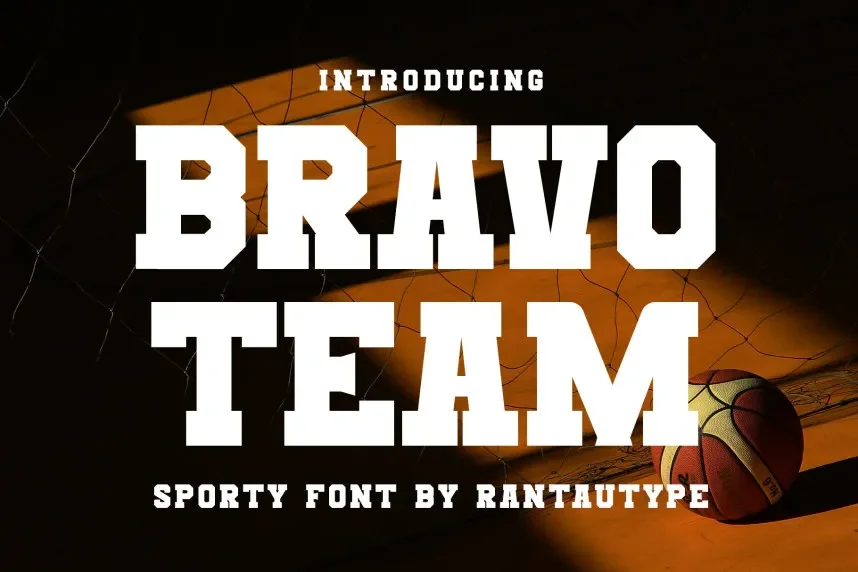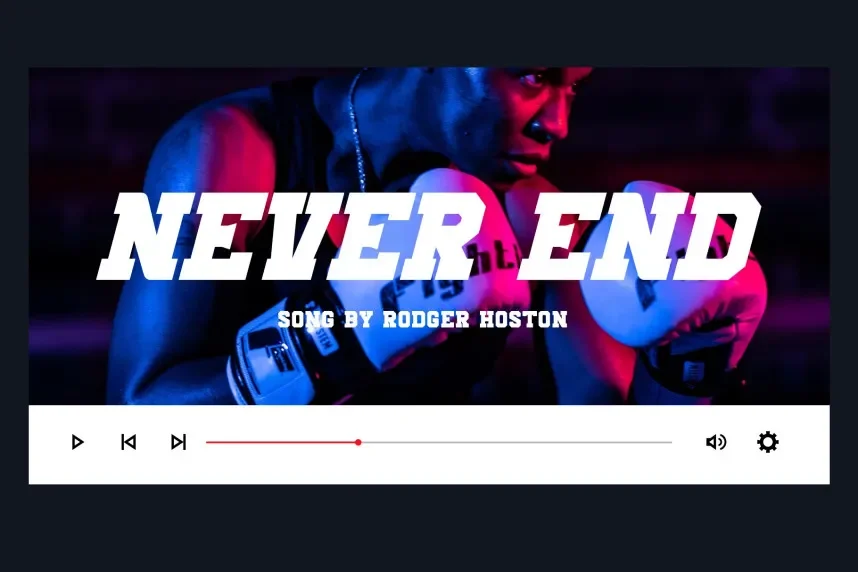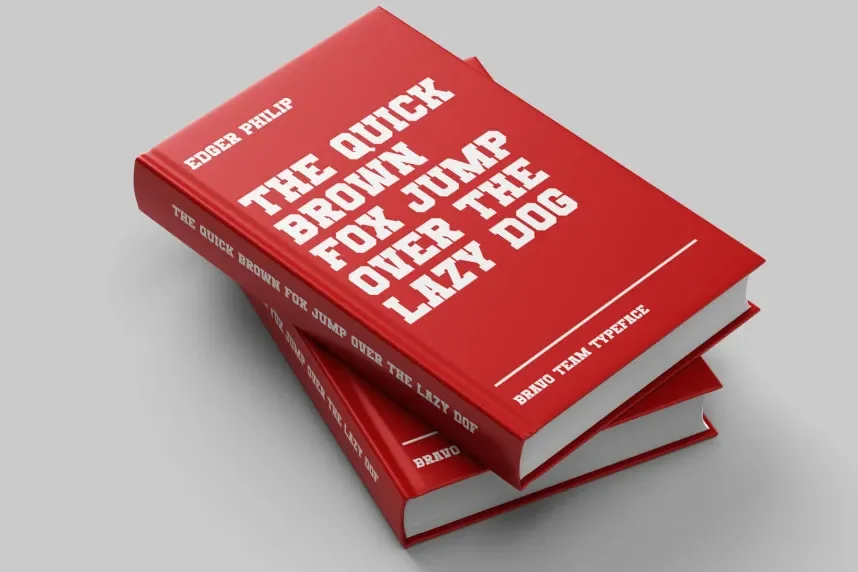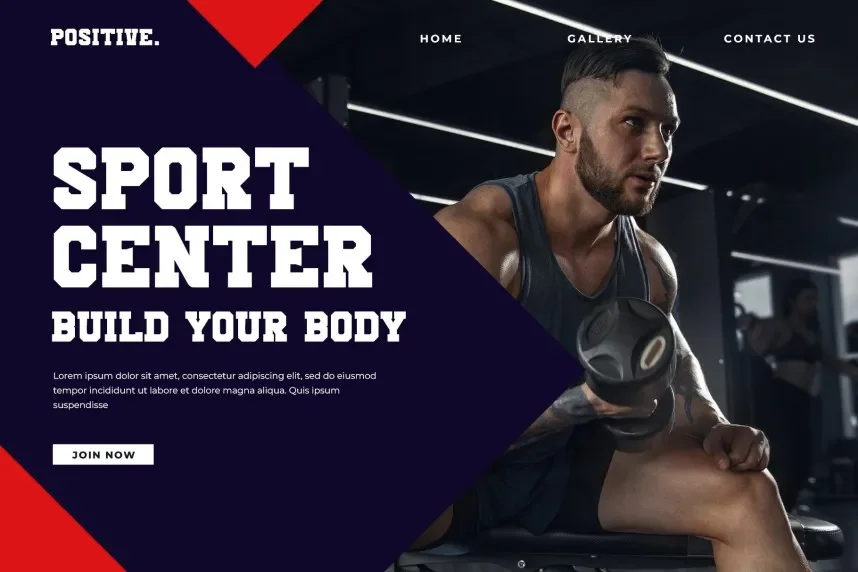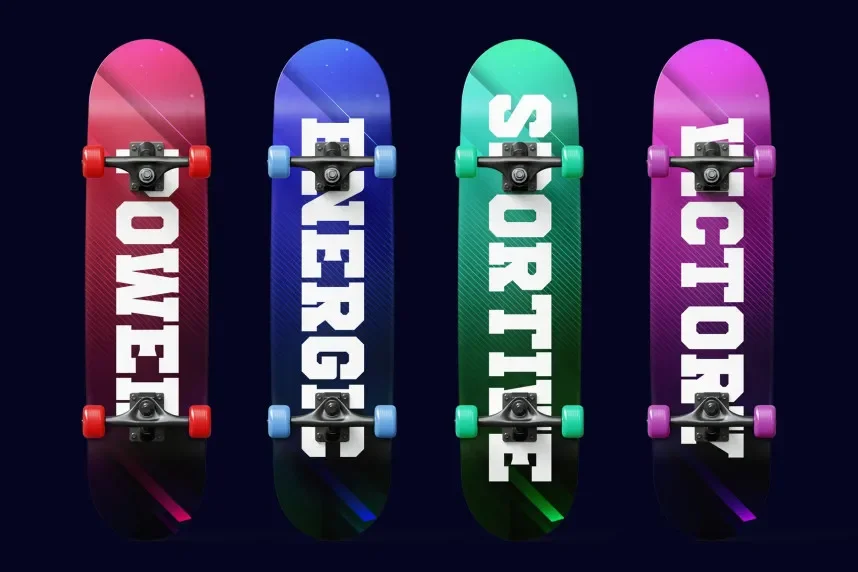
Bravo Team Font is a bold, military-inspired sans-serif typeface with a strong, sturdy design. The blocky letterforms and strong presence make it ideal for projects requiring a tough, impactful look, such as military logos, tactical branding, and event promotions.